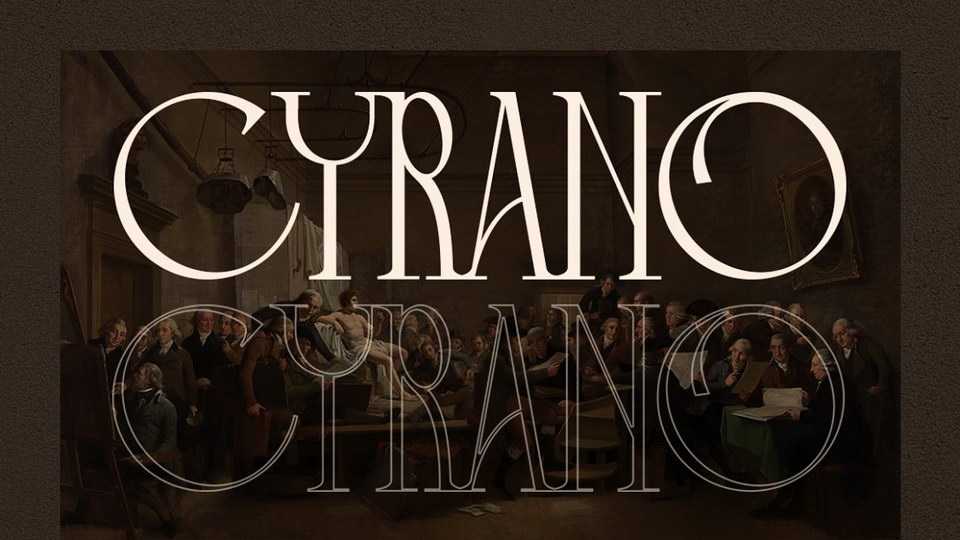
Download Cyrano font, unique serif typeface, every single letters have been carefully crafted to make your text looks fashionable Cyrano is specially designed for fashion-themed projects, perfectly suitable for creating elegant, chic, lifestyle design.